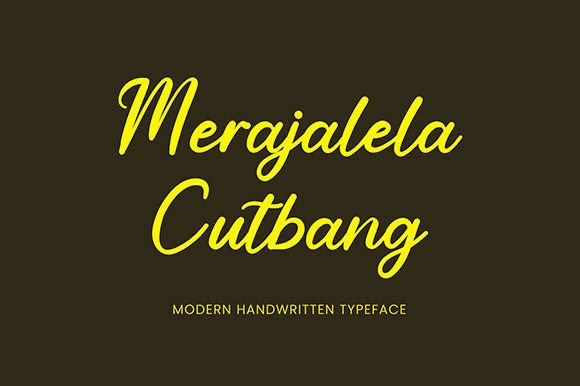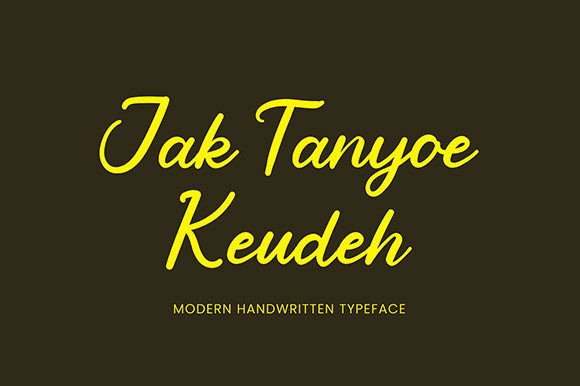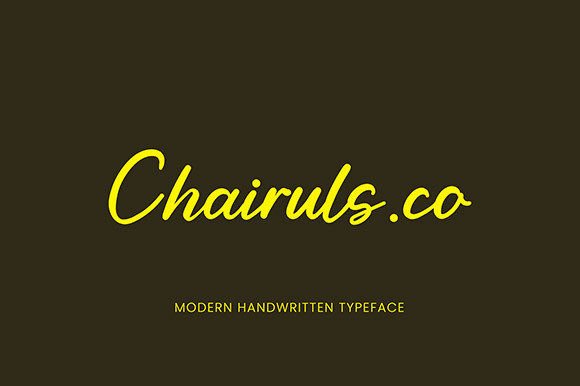
Introduction to Hildanum Font
Have you ever been scrolling through your design files, searching for the perfect font to add that special touch to a project, only to come across a blank slate? This is where the magic of the Hildanum Font comes in – a charming and elegant handwritten script font that can breathe new life into your creative endeavors.
With its flowing, natural strokes, the Hildanum Font creates a sense of warmth and closeness, making it perfect for designs that require a personal and authentic touch. Whether you’re working on a branding project, packaging design, or invitation suite, this high-quality font is sure to elevate your work and leave a lasting impression on your audience.
Key Features of Hildanum Font
- Unique, handcrafted font with a transparent background, perfect for adding texture and depth to designs
- Includes multiple styles and weights, offering flexibility for a wide range of design applications
- Designed to be easily scalable, making it suitable for use in various design contexts, from small to large-scale creative projects
- Perfect for designers looking for a unique, high-quality design resource for their next creative project
Honest Review: Hildanum Font
I recently stumbled upon the Hildanum Font and I must say, I’m quite impressed. As a designer, I’m always on the lookout for high-quality design resources that can elevate my creative projects.
The Hildanum Font offers a beautiful, elegant script that’s perfect for adding a touch of sophistication to any design. The font is available for free download, which is a major plus for designers on a budget.
Here are some of the things that I love about the Hildanum Font:
- ✨ Beautiful, elegant script that’s perfect for creative projects
- ✨ High-quality design that’s perfect for logos, invitations, and more
- ✨ Transparent background, making it easy to use in any design
- ⚠️ Limited font styles, which may limit its use in certain projects
- ⚠️ Not suitable for large-scale typography, as it can become difficult to read
Overall, I’m really impressed with the Hildanum Font and would highly recommend it to designers looking for a high-quality, elegant script. It’s perfect for creative projects and is available for free download, making it a valuable design resource for designers of all levels.
How to Use Hildanum Font
Tips and Best Practices
To get the most out of the Hildanum Font, use it sparingly to add emphasis and create visual interest in your design. Also, experiment with different font sizes, colors, and combinations to find the perfect look for your creative project.
The Hildanum Font is commonly used in creative projects such as logos, business cards, brochures, and social media graphics. Its unique design and high quality make it a popular choice among designers and artists.